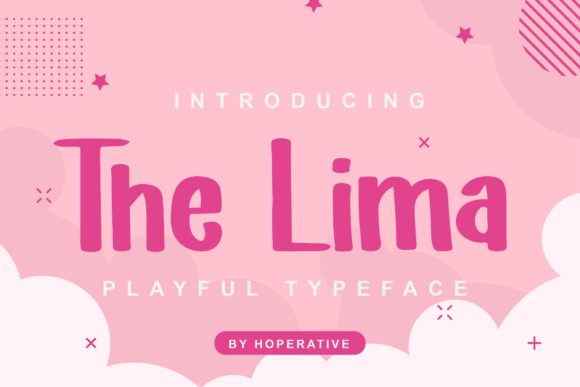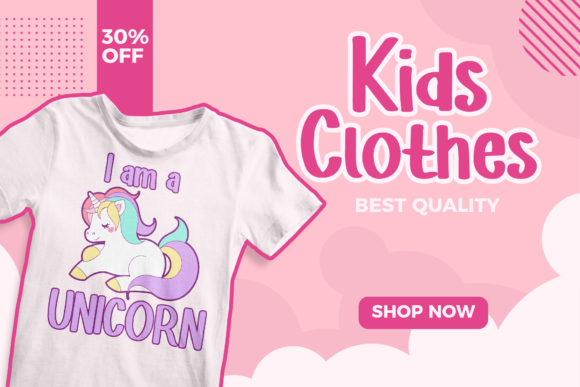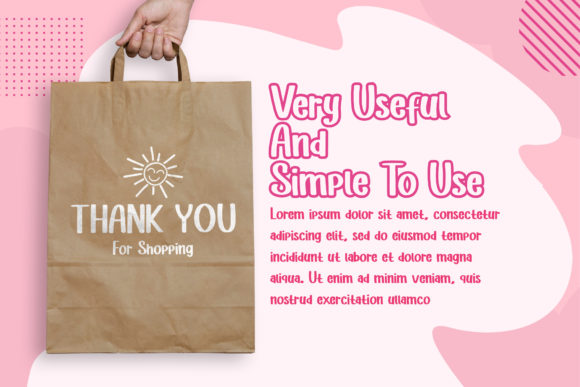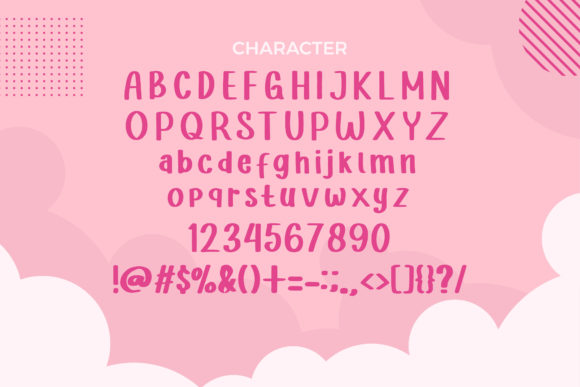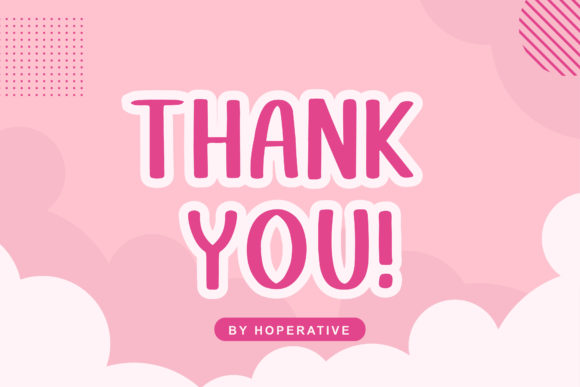
The Lima is a cool, neat and adaptable brushed display font. It can easily be matched to an incredibly large set of projects, so add it to your creative ideas and notice how it makes them stand out!